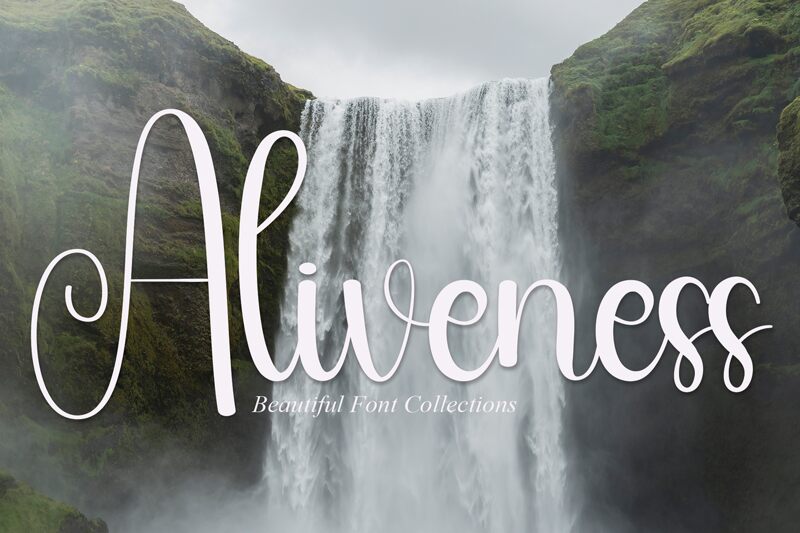
Aliveness
Aliveness font by Andi Moz exudes elegance and sophistication in a graceful calligraphy style. Flowing with an artistic flair, its smooth curves and gentle angles create a timeless and harmonious appearance. Each character is meticulously crafted, ensuring that every word written with this free calligraphy font comes alive with visual interest and beauty.
Use Aliveness for wedding invitations, personal branding projects, greeting cards, or motivational posters. It’s ideal for creating elegant book covers, sophisticated packaging design, refined logotypes, upscale stationery design, or memorable event announcements. Enjoy crafting beautiful typography for digital banners or social media content as well.